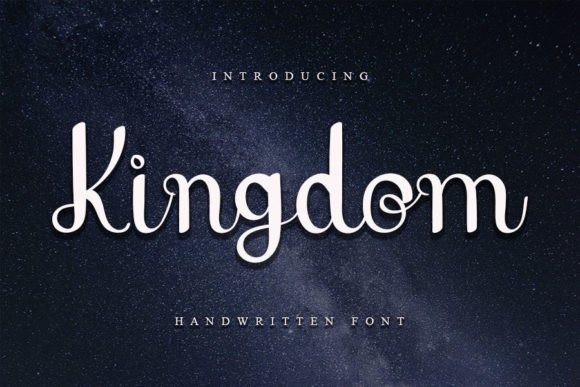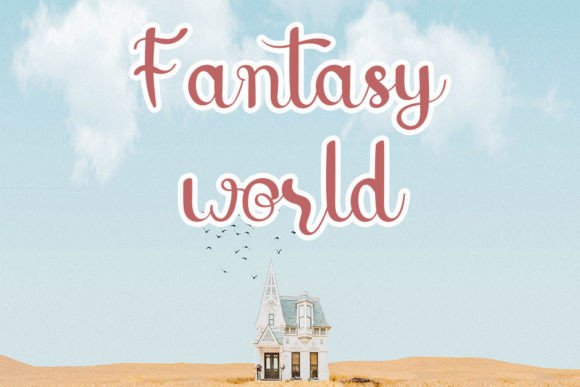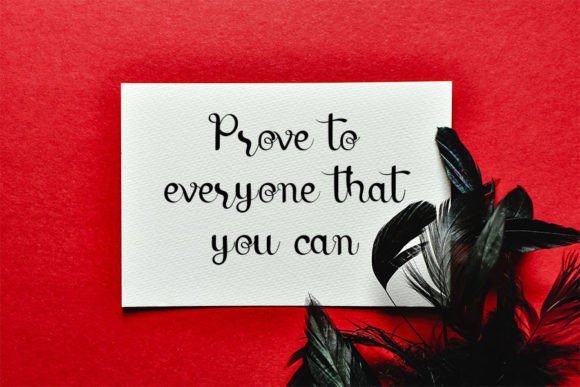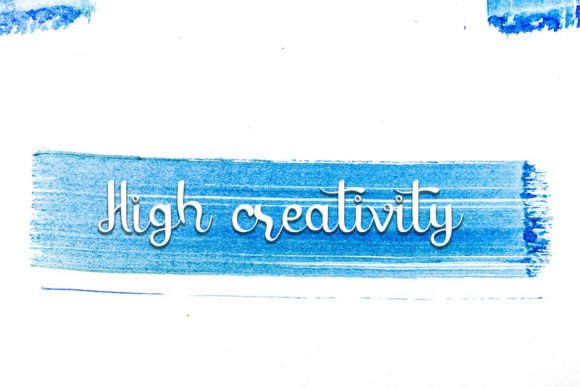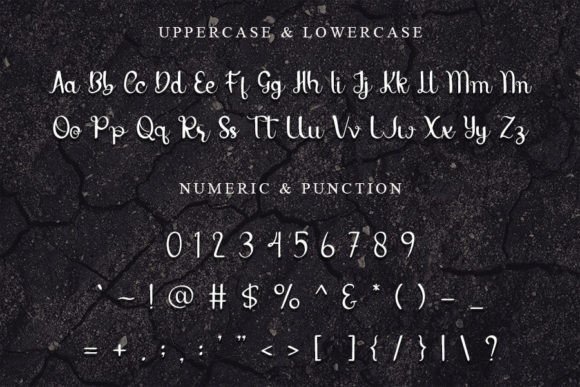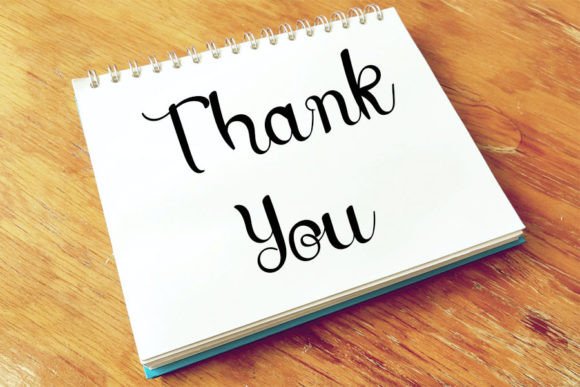
Kingdom Font
About Kingdom Font
“Kingdom” is not just a font; it’s a friendly, handwritten masterpiece meticulously designed to capture hearts and elevate creative projects to extraordinary heights. In the world of typography, “Kingdom” stands out as a testament to the seamless fusion of classic calligraphic influences and a fresh, contemporary vibe.
At its core, “Kingdom” is an embodiment of timeless elegance. Every curve, every stroke is thoughtfully crafted to exude a sense of class and sophistication. The font’s calligraphic roots lend it an air of grace, making it perfect for projects that demand a touch of refined aesthetics. Whether you’re designing invitations, branding materials, or any creative piece, “Kingdom” ensures that your work speaks the language of timeless beauty.
What sets “Kingdom” apart is its ability to bridge the gap between tradition and modernity. While it pays homage to classic calligraphy, it does so with a twist, infusing a contemporary and fresh feel. This duality makes it incredibly versatile, suitable for a wide range of creative endeavors. It’s not just a font; it’s a design tool that adds a layer of sophistication and innovation to your projects.
Imagine a wedding invitation adorned with the graceful loops and swirls of “Kingdom,” setting the tone for an elegant celebration. Picture a brand logo that combines the rich history of calligraphy with a modern flair, creating a visual identity that resonates with both tradition and progress. “Kingdom” is not just a typographic choice; it’s a strategic decision to make your creative projects truly outstanding.
In the hands of a designer, “Kingdom” becomes a magic wand, transforming ordinary designs into extraordinary works of art. Its friendly and approachable demeanor invites viewers to engage with the content, creating a visual experience that goes beyond the ordinary. Whether used in print or digital media, “Kingdom” leaves an indelible mark, making your designs memorable and impactful.
So, go ahead, add the charm of “Kingdom” to your creative arsenal. Let it be the secret ingredient that turns your projects into masterpieces. With its harmonious blend of classic and contemporary, this font is not just a typeface; it’s a design companion that ensures your work stands the test of time while remaining fresh and relevant. “Kingdom” – where timeless elegance meets modern creativity.